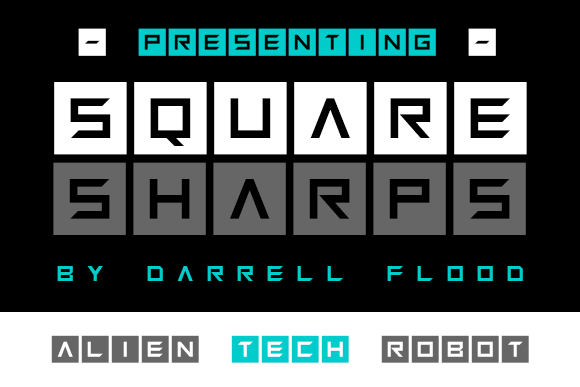
Squaresharps Font
Prepare to embark on a typographic adventure with Squaresharps, a futuristic display font that will transport your designs to the next dimension. Inspired by the sleek lines and sharp angles of cutting-edge technology, Squaresharps is a font that exudes confidence and innovation. Its bold, geometric forms dance across the page, creating an eye-catching and unforgettable visual experience.
With Squaresharps, you can effortlessly craft designs that speak to the future. Its unique tile-like grid lends a touch of retro charm while maintaining a distinctly modern aesthetic. Whether you're creating sci-fi posters, tech presentations, or simply want to add a touch of edge to your designs, Squaresharps is the perfect font for the job.
Imagine your words transformed into a symphony of sharp angles and geometric precision. Squaresharps' crisp lines and strong presence will command attention and leave a lasting impression on your audience. Its futuristic flair will elevate your designs, setting them apart from the ordinary and propelling them into the realm of the extraordinary.
Embrace the power of Squaresharps and unlock the potential of your creativity. Its bold and captivating style will empower you to create designs that resonate with both your audience and your brand's identity. Join the typographic revolution and experience the transformative power of Squaresharps today!